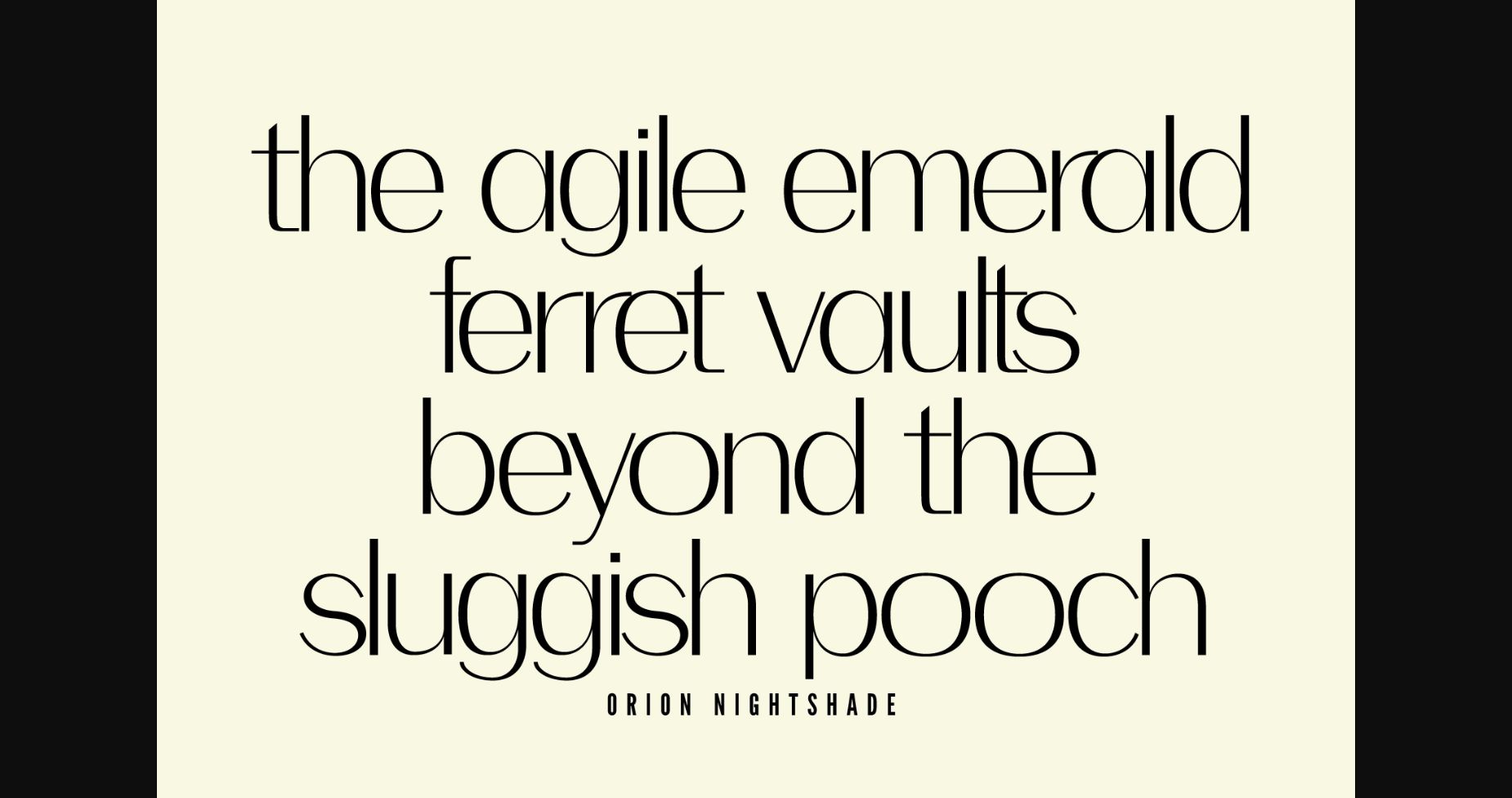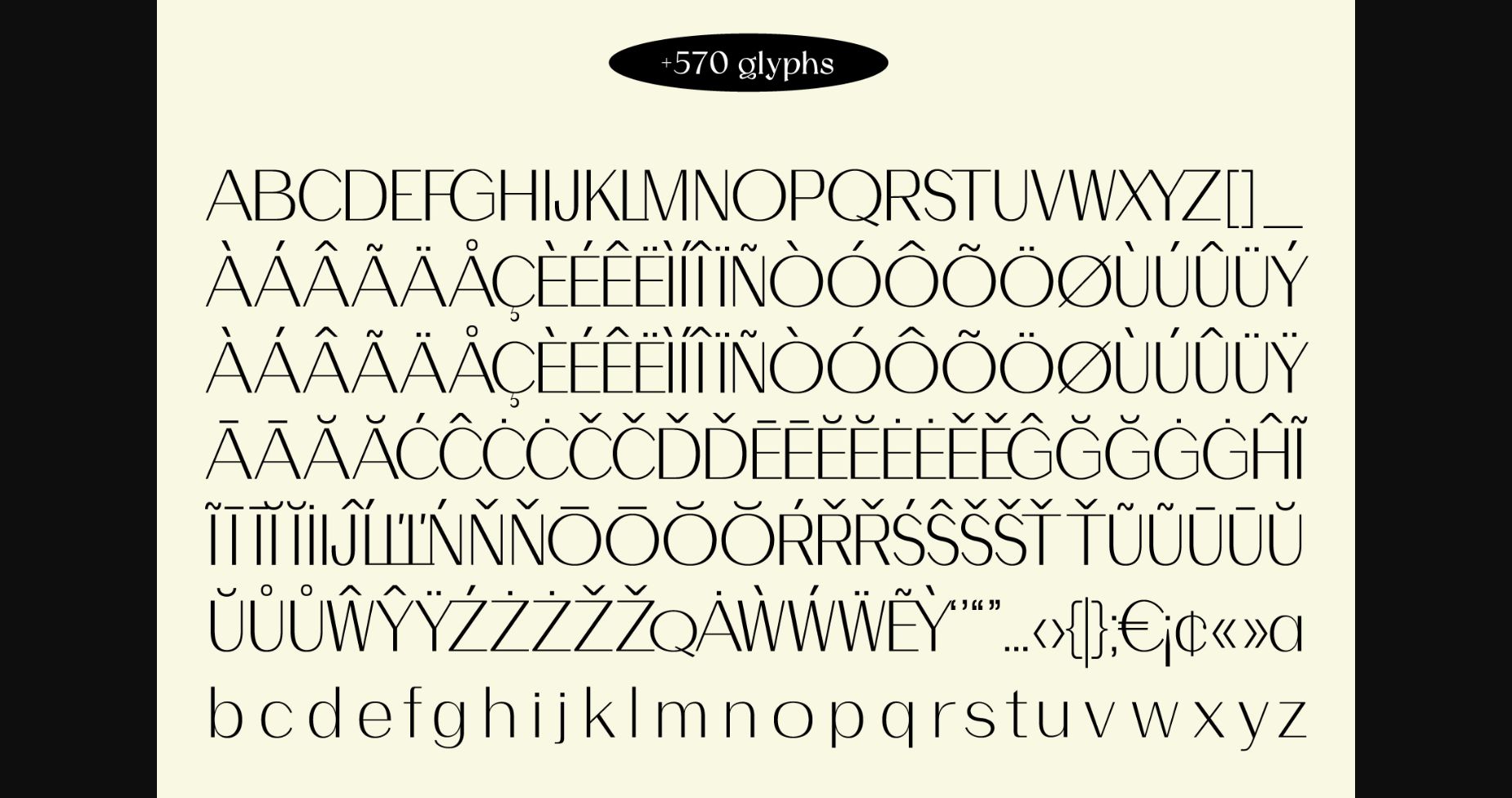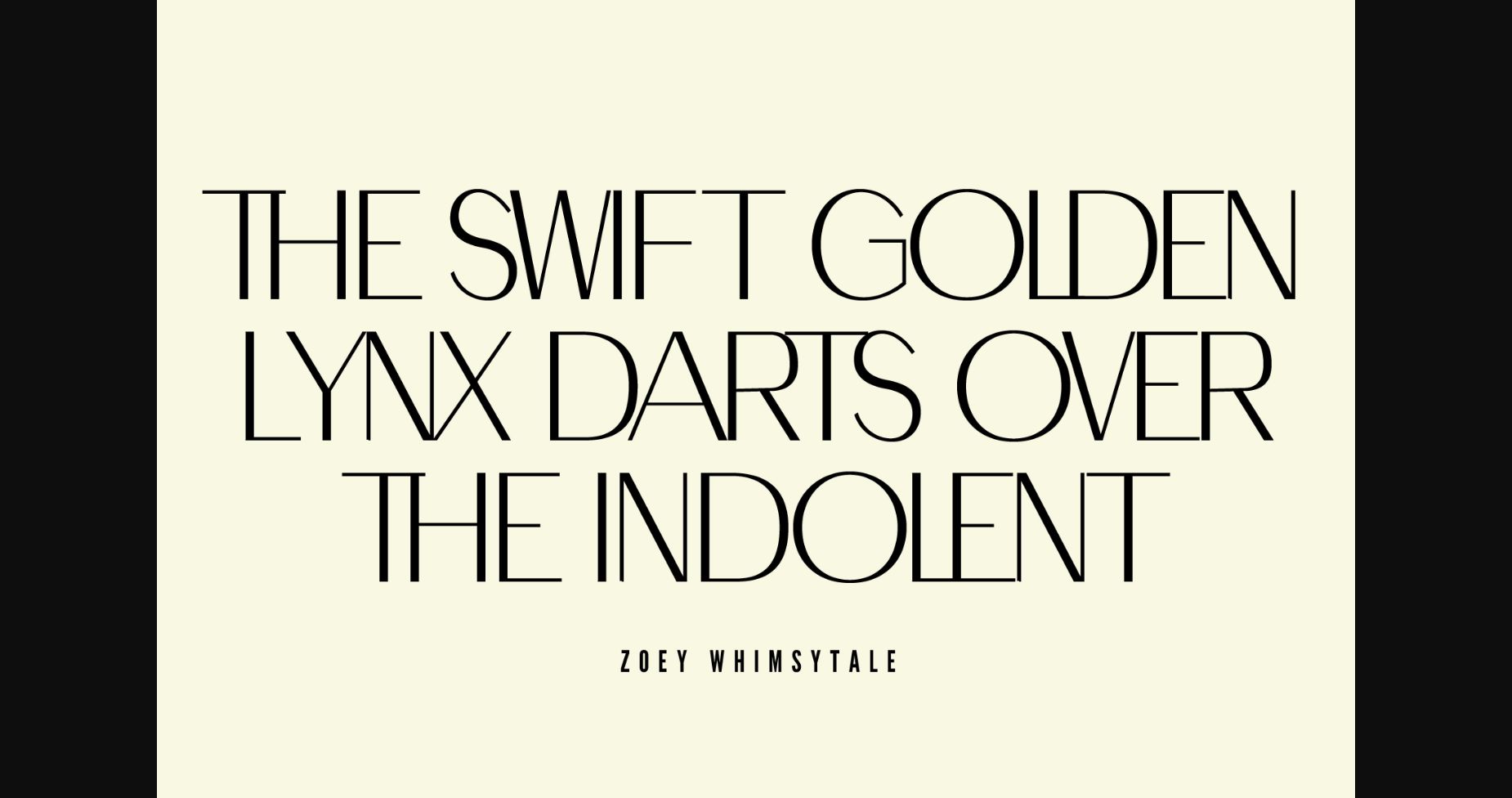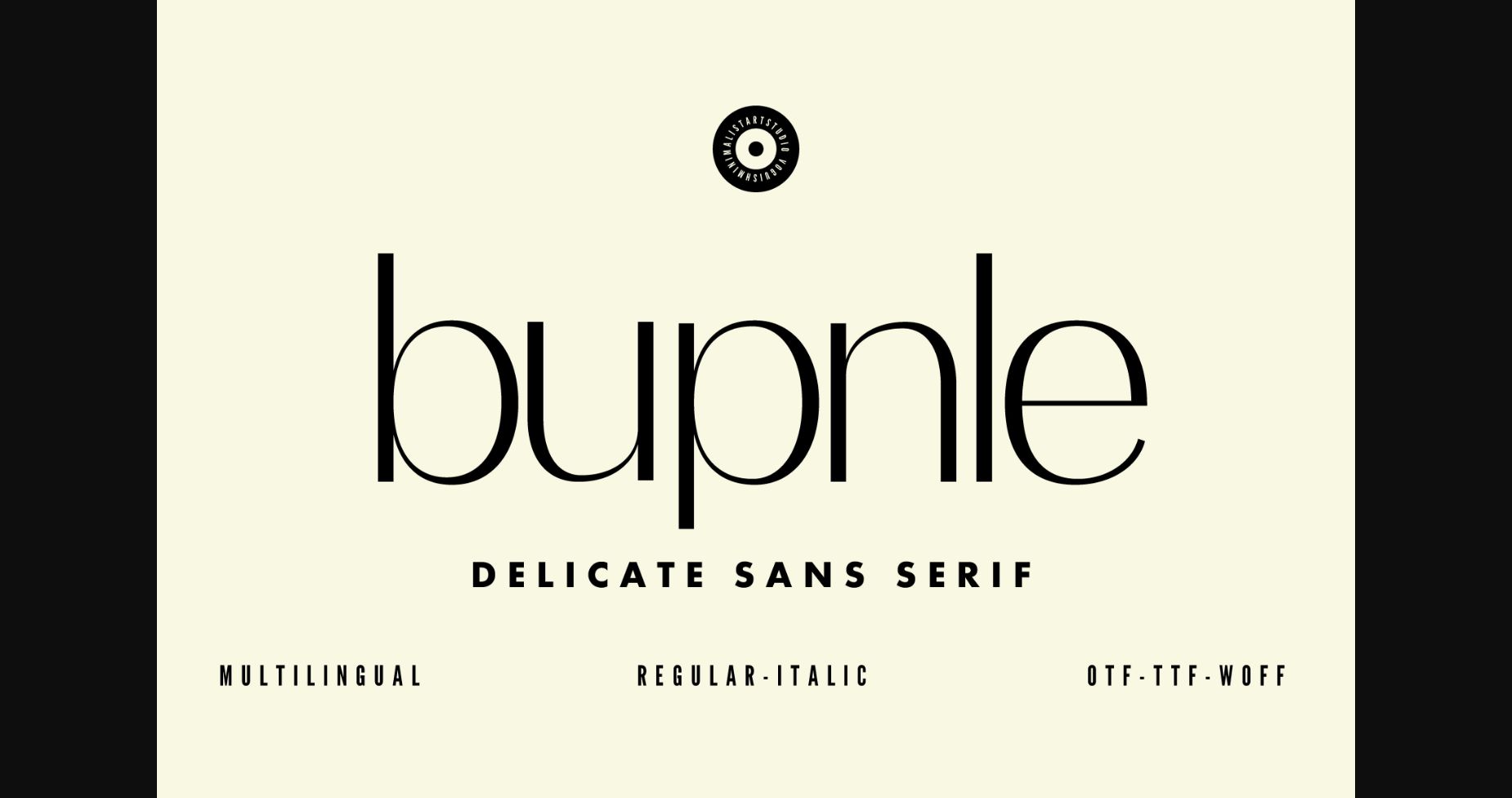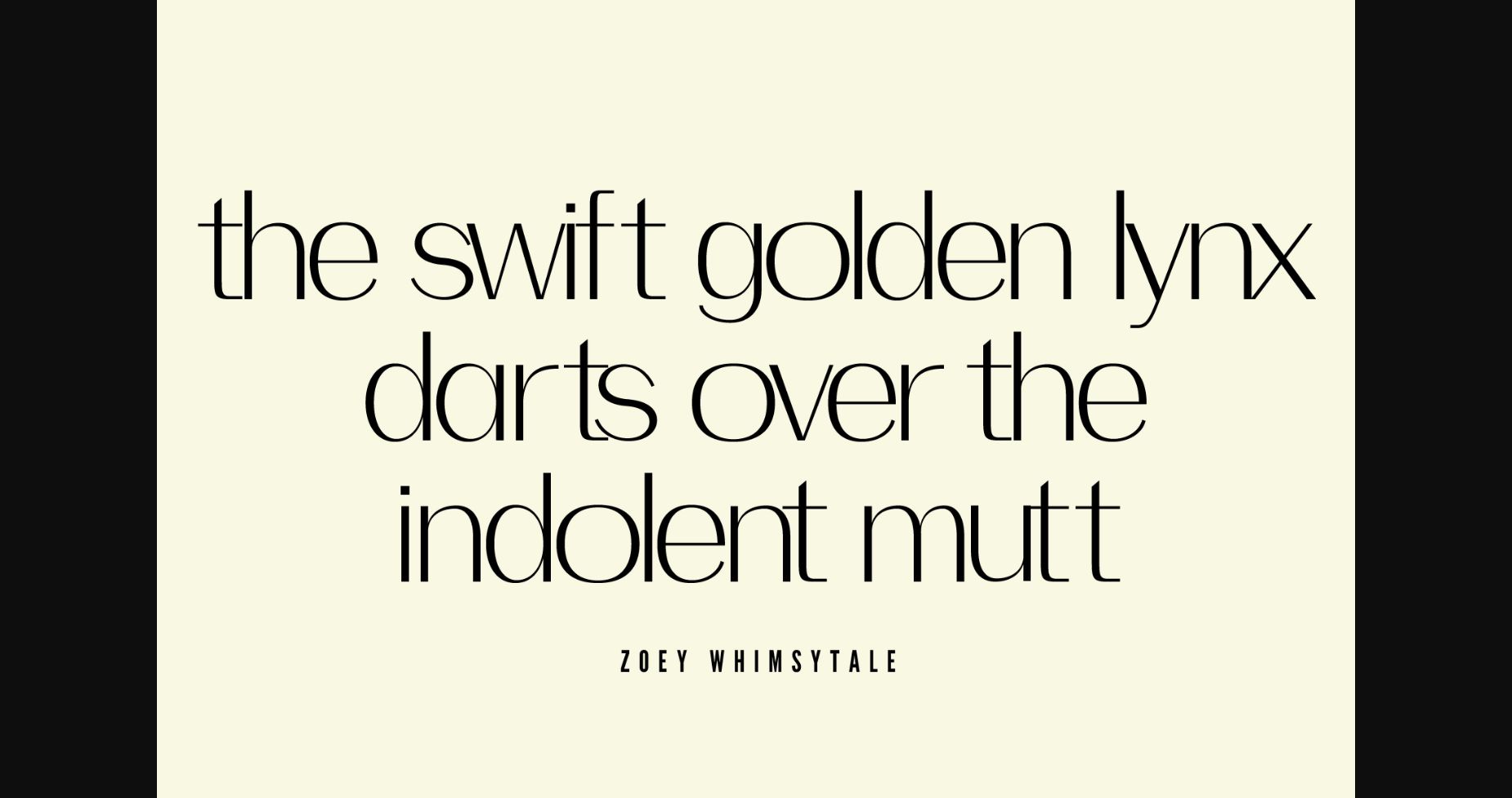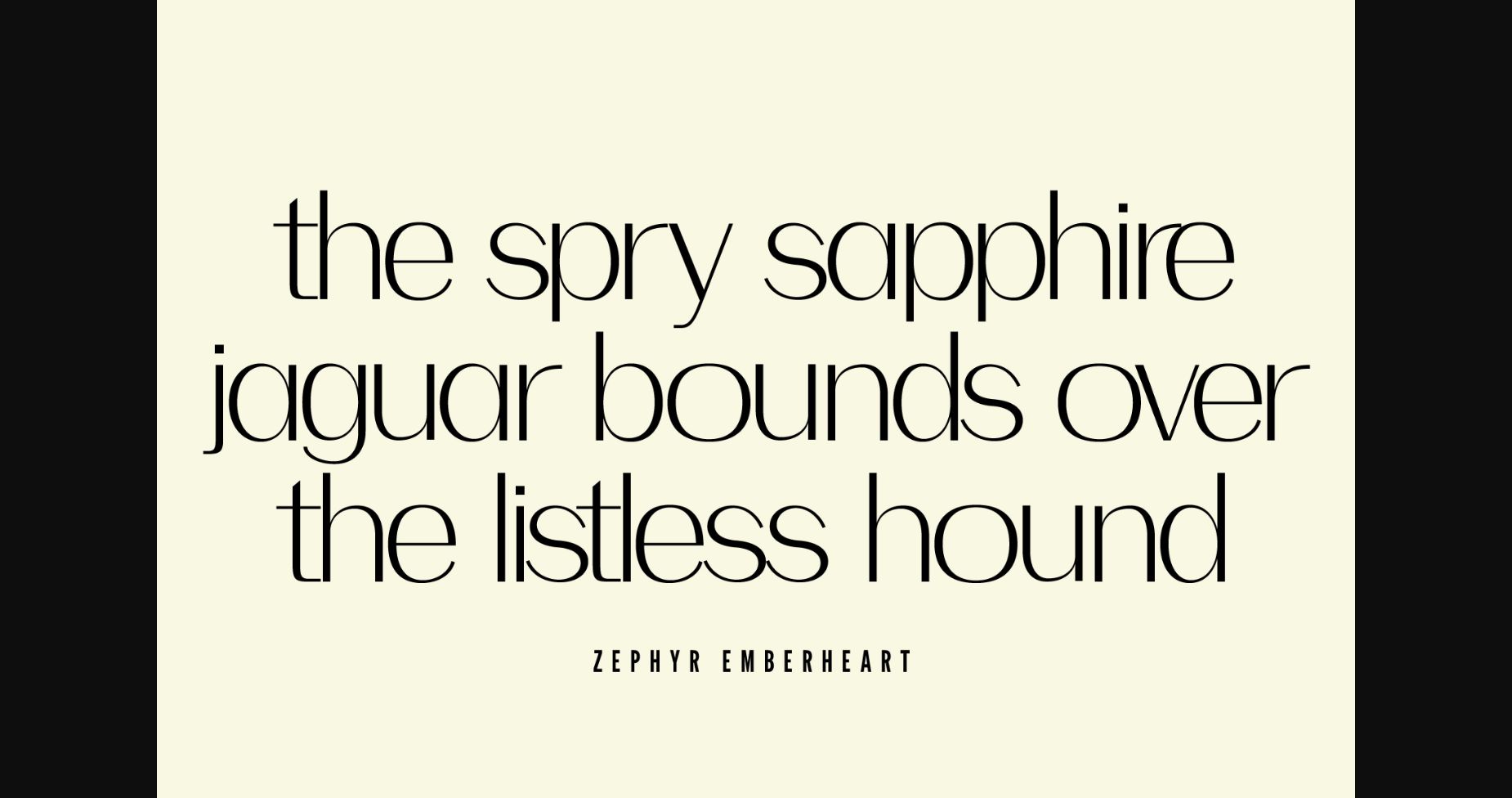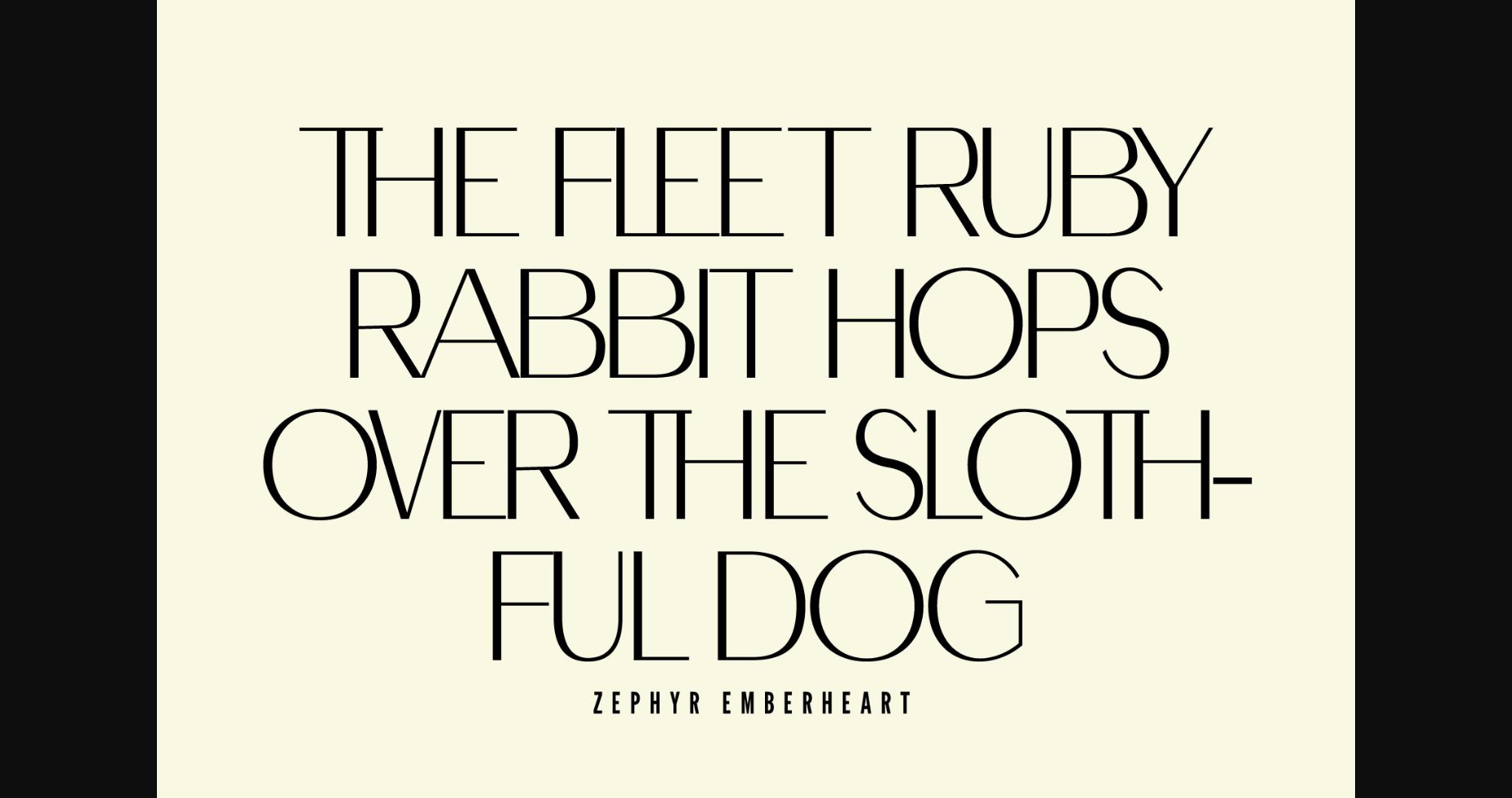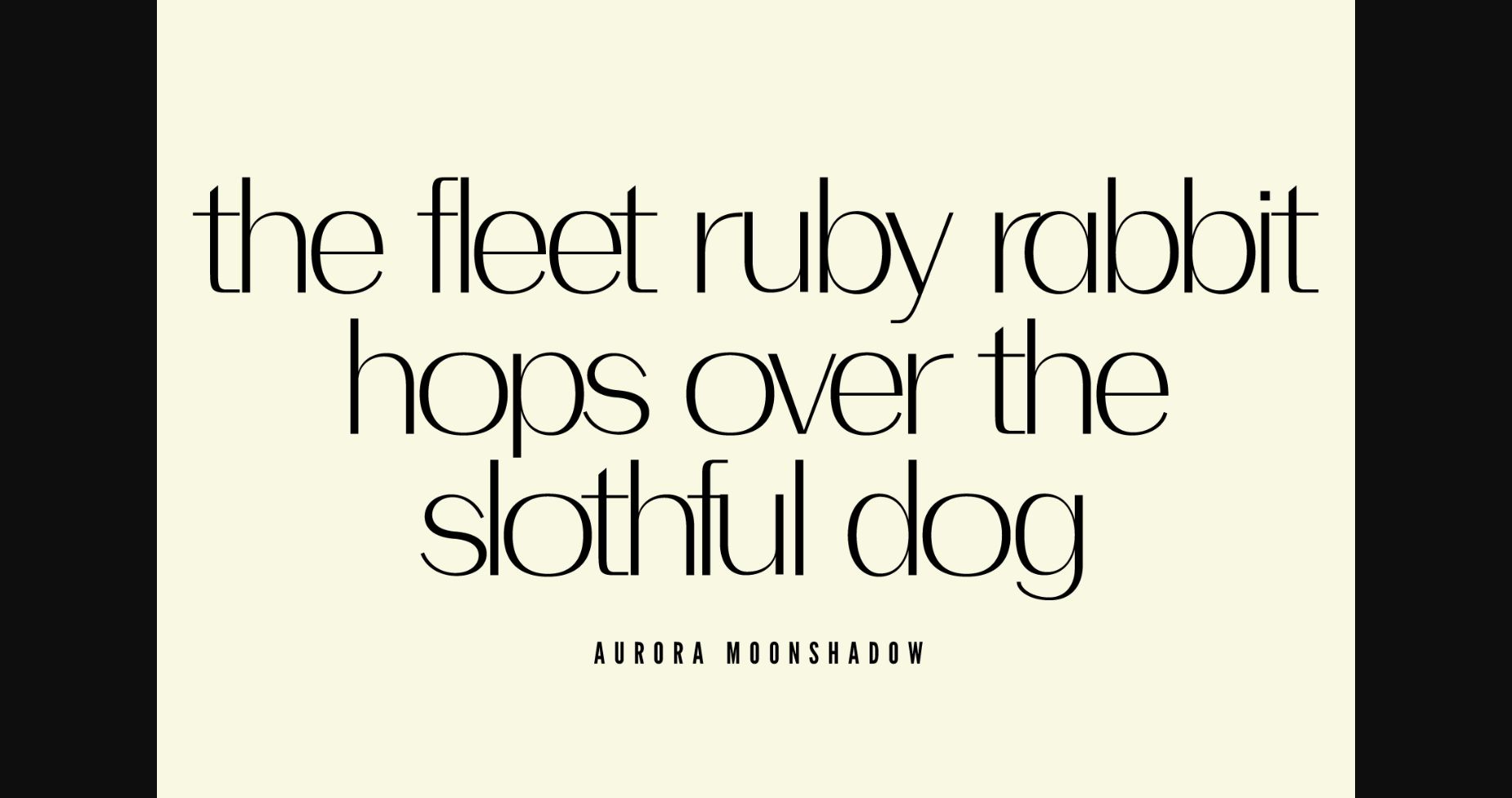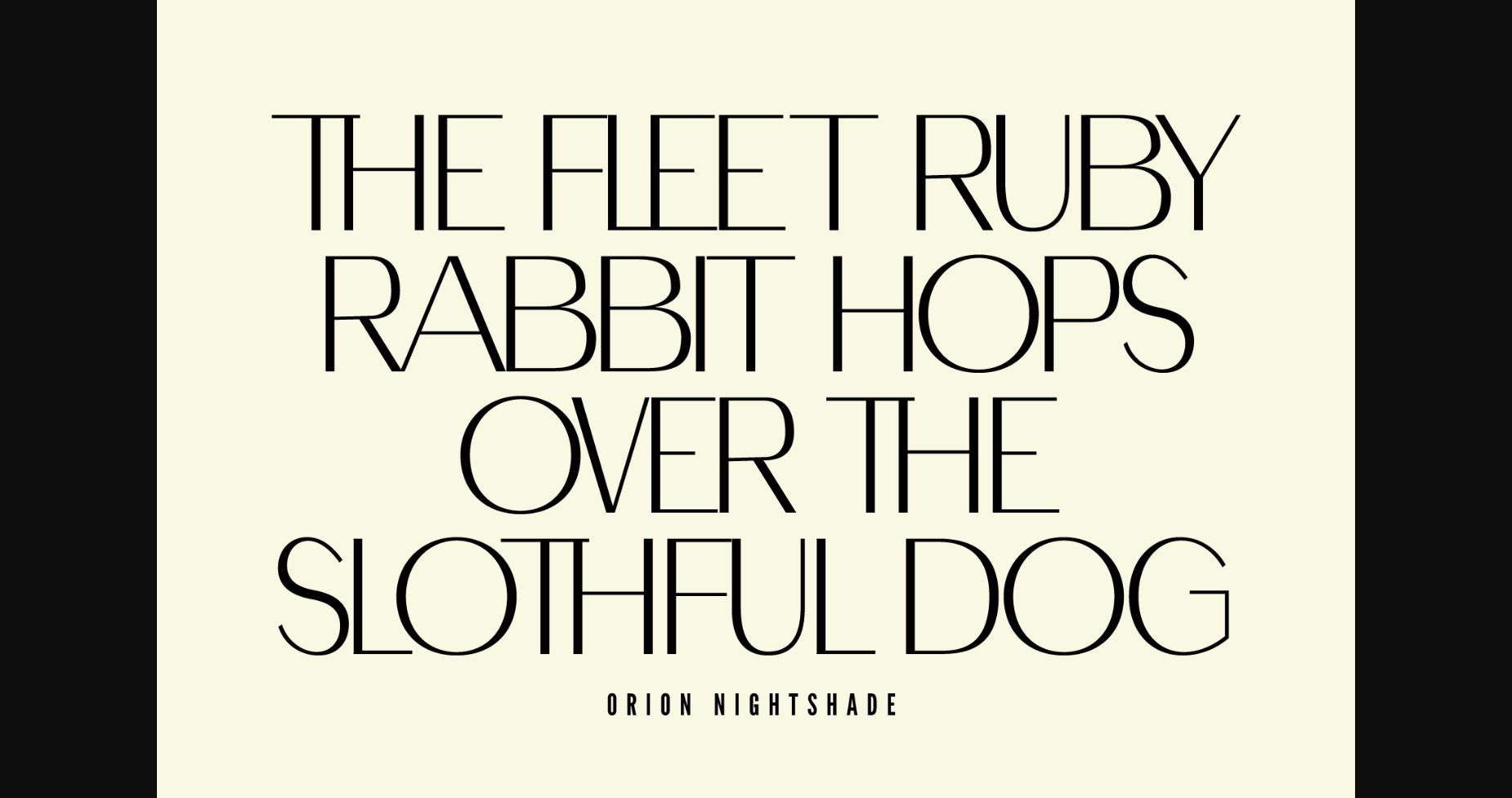
Bupnle Font
About Bupnle Font
Introducing “Bupnle” – Your Gateway to Modern Simplicity!
Embrace the essence of modern simplicity with our elegant and chic sans serif typeface, “Bupnle.” Designed to elevate your creative projects to new heights, Bupnle is the perfect choice for those seeking a clean, minimalist, and contemporary look.
With its sleek and sophisticated design, Bupnle effortlessly captures attention while conveying a sense of effortless style. Whether you’re crafting stunning logos, designing eye-catching brand identities, or creating visually striking marketing materials, this typeface will be your faithful companion in achieving a refined and polished aesthetic.
The distinct and balanced letterforms of Bupnle offer unparalleled legibility, ensuring your message remains clear and impactful across various mediums. From digital platforms to print media, Bupnle’s versatility shines through, adapting seamlessly to any project you have in mind.
One of Bupnle’s key strengths is its ability to transform your work into a timeless masterpiece. By embracing the less-is-more philosophy, this typeface allows your content to take center stage, leaving a lasting impression on your audience.
But that’s not all – Bupnle also boasts an extensive character set, offering multilingual support to reach a global audience. So, whether you’re targeting local markets or international clients, this typeface has got you covered.
Unlock the potential of modern design with “Bupnle” and let your creativity flow like never before. Embrace the power of minimalism, elegance, and timelessness, all bundled together in this exceptional sans serif font.